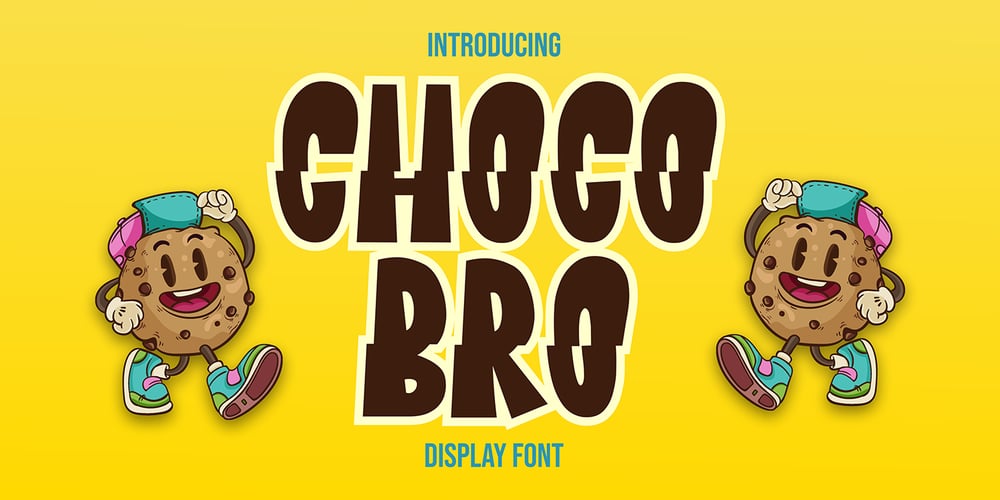
Choco Bro Font Family was designed by Sipanji and published by Sipanji21. Choco Bro contains 1 styles and family package options. “Choco Bro” is a cute and chubby display font characterized by truncated or shortened characters. Fonts with truncated characters often feature letterforms where certain parts are cut off or abbreviated, giving them a unique and distinctive appearance.This font can be a delightful choice for various design projects, especially those targeting children’s themes or playful designs. The truncated characters add a quirky and playful touch to the font, making it suitable for posters, invitations, children’s books, or any project that aims for a fun and whimsical typographic style.